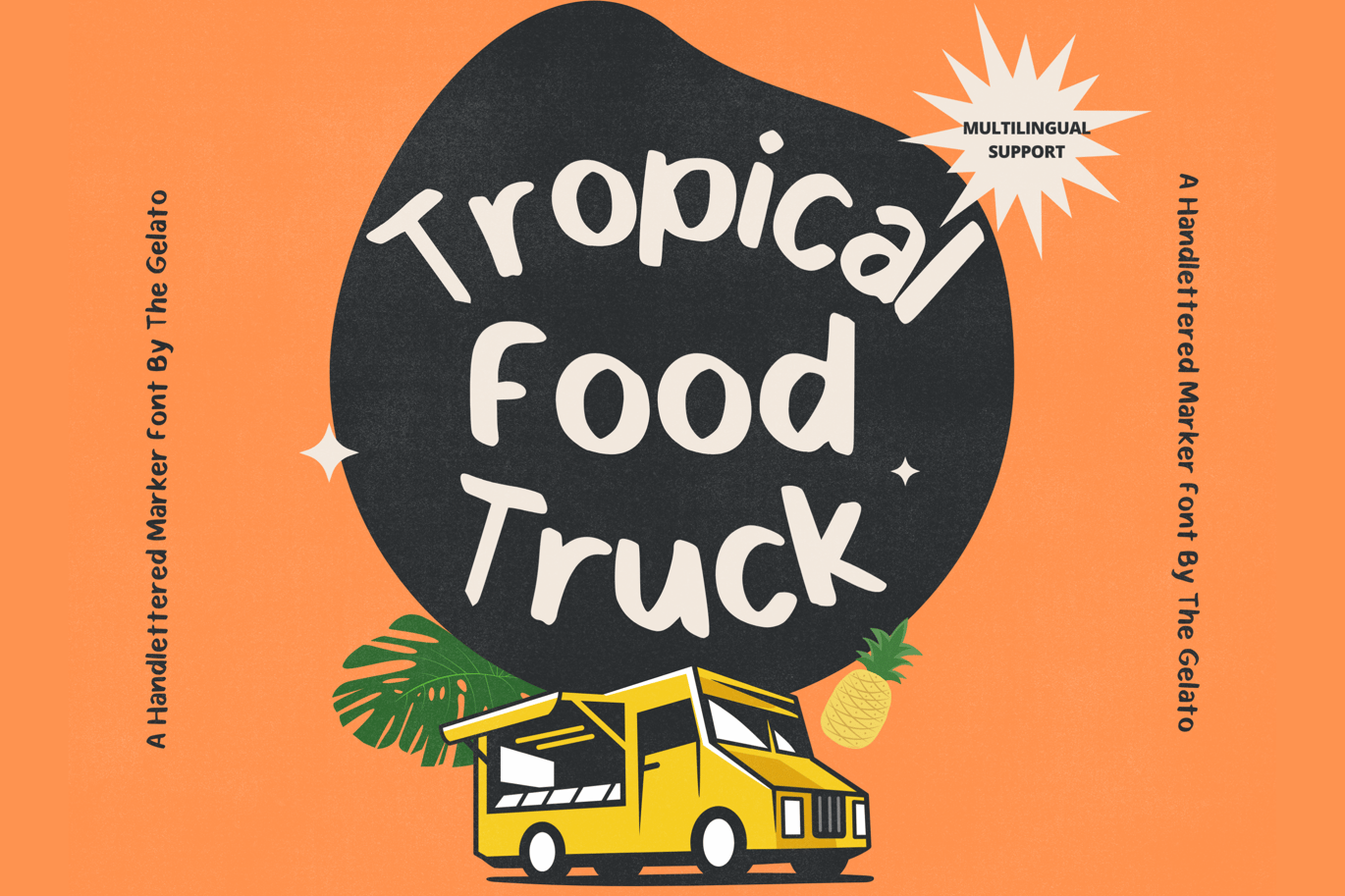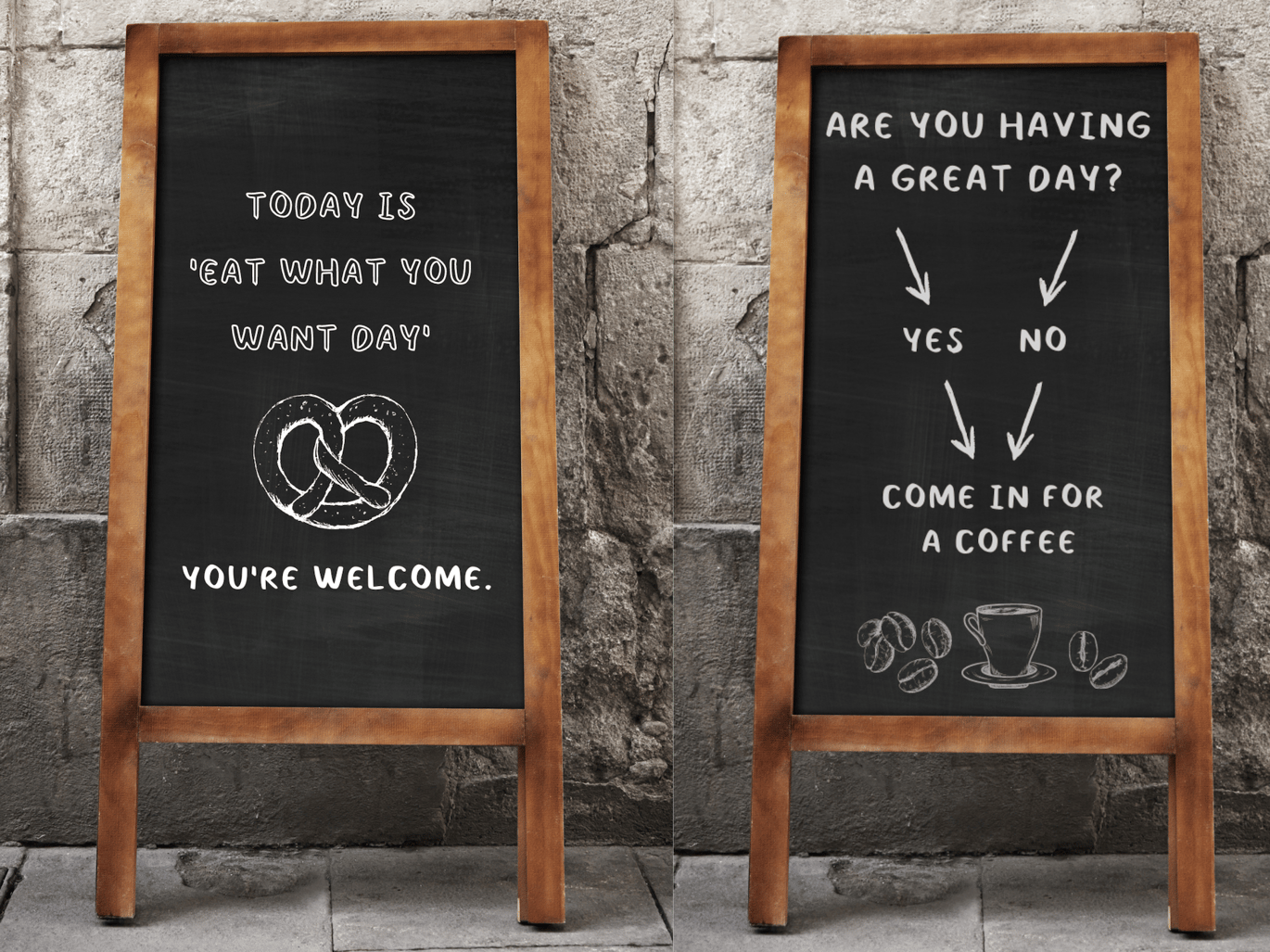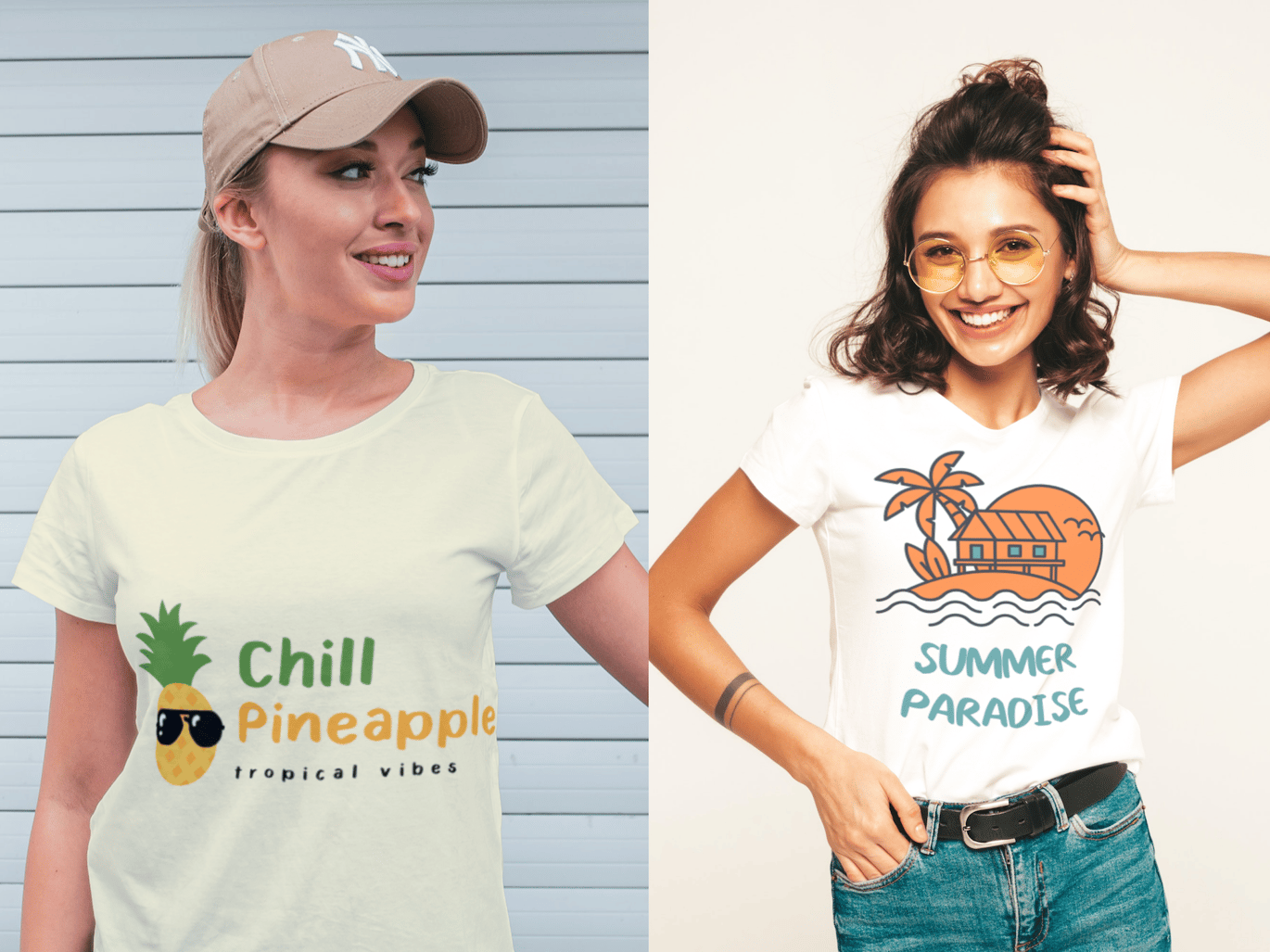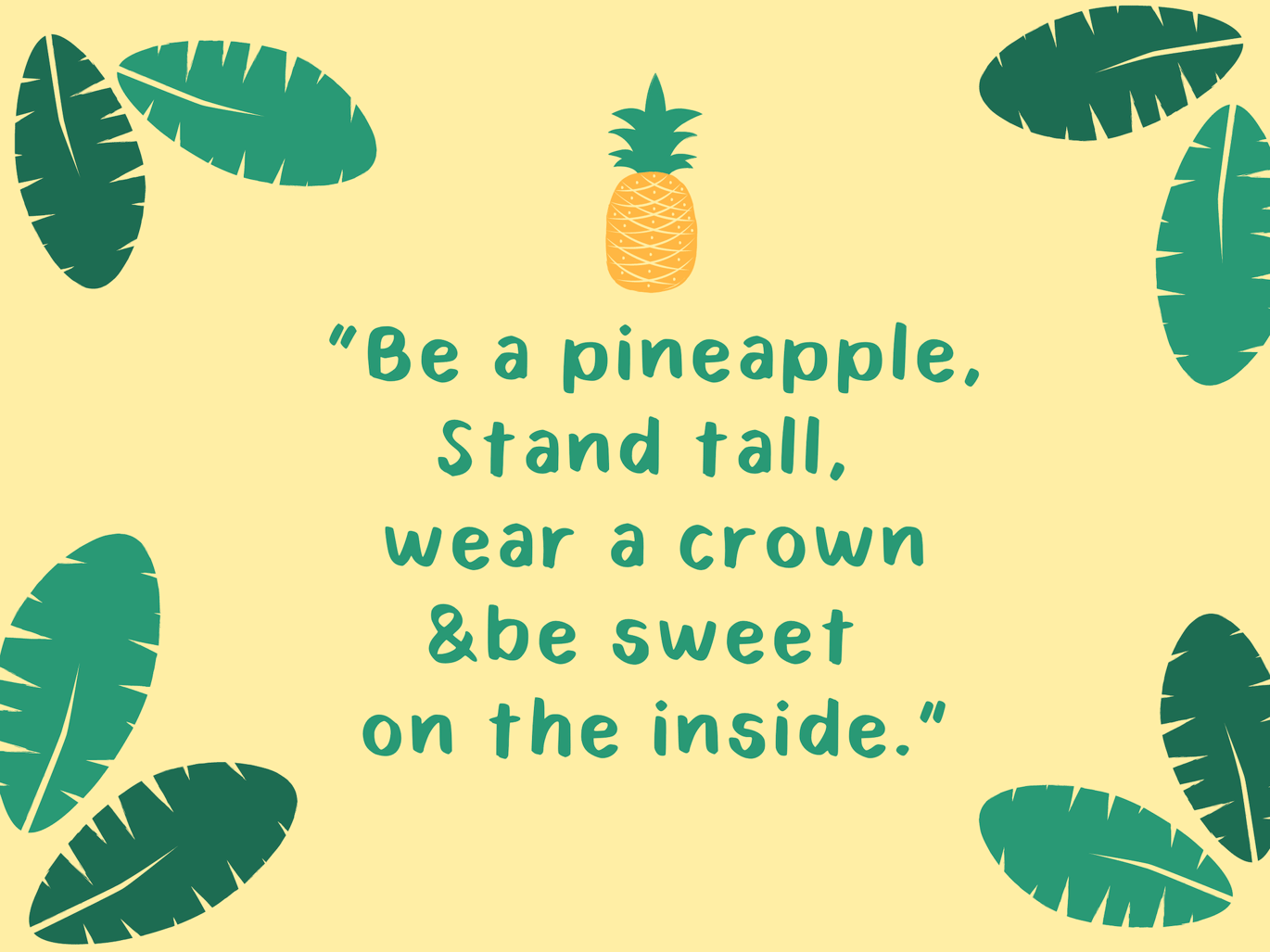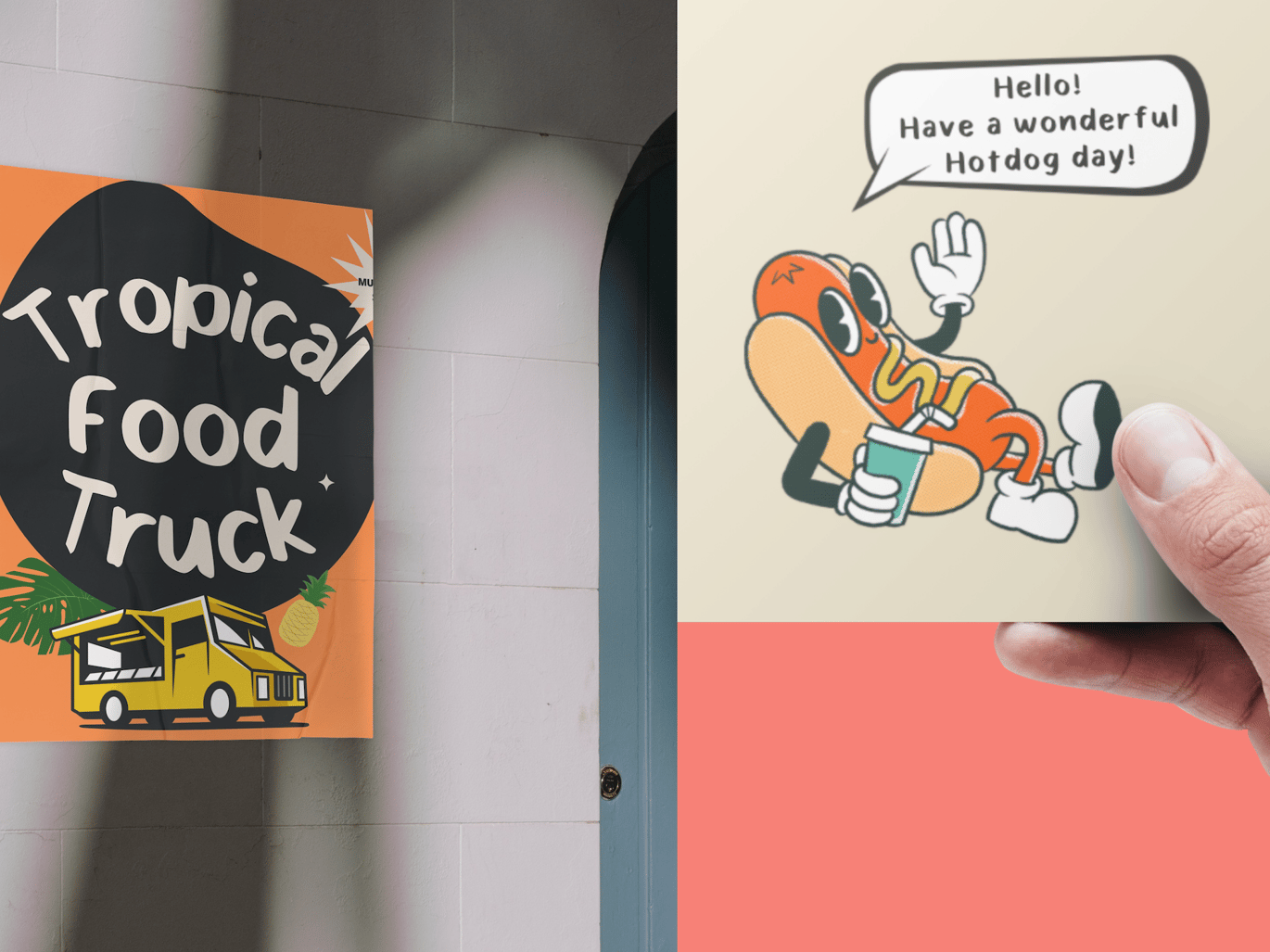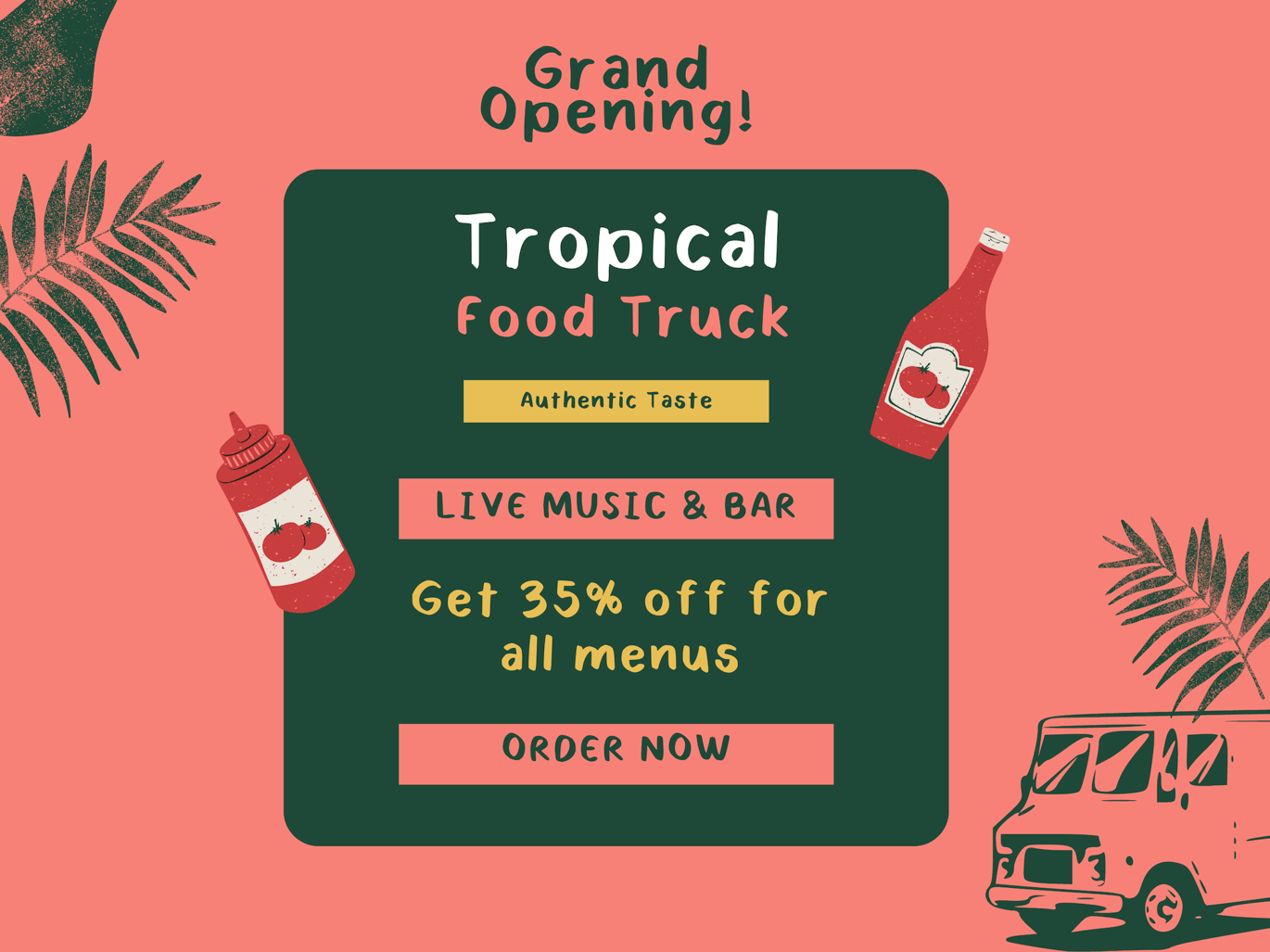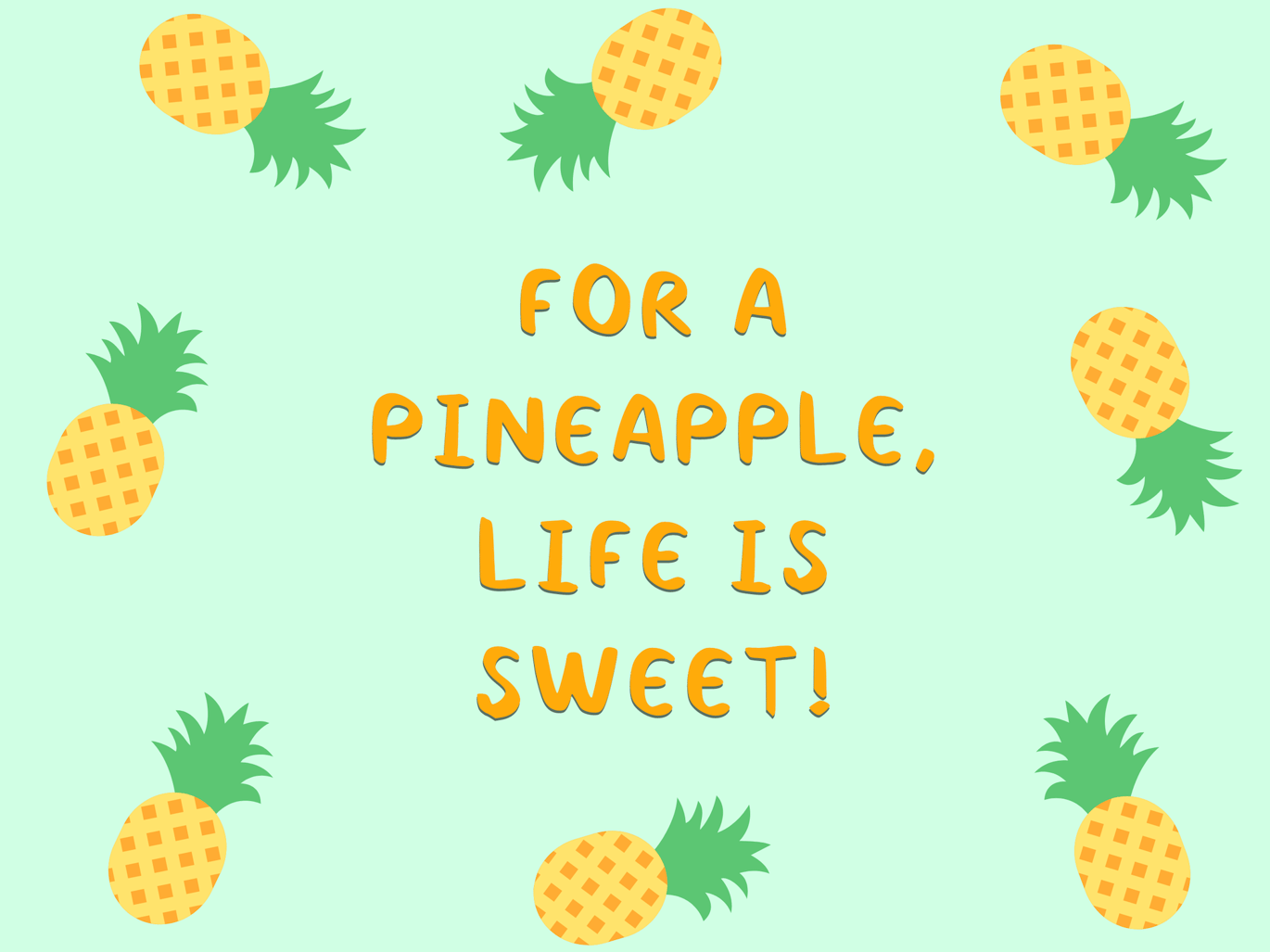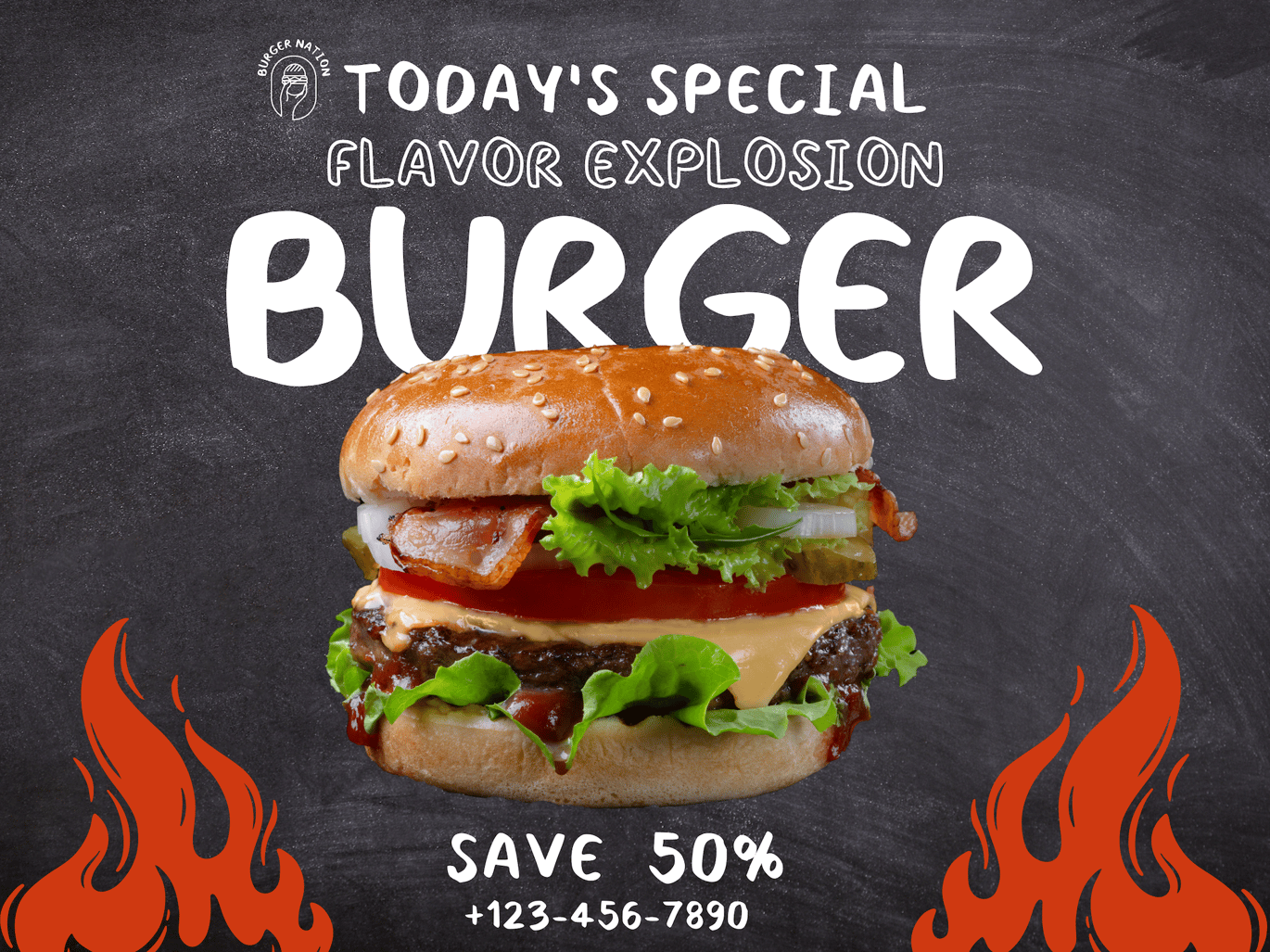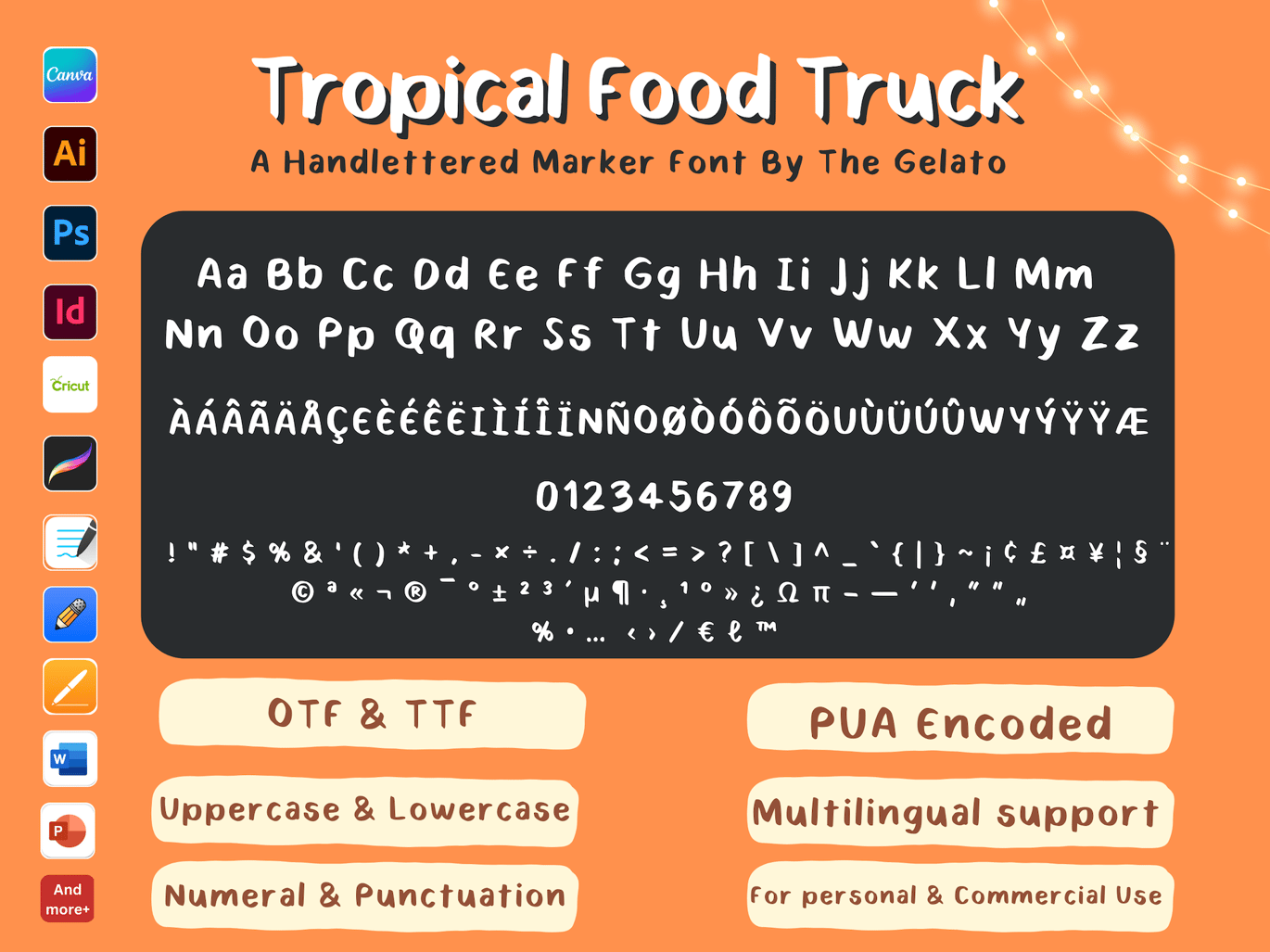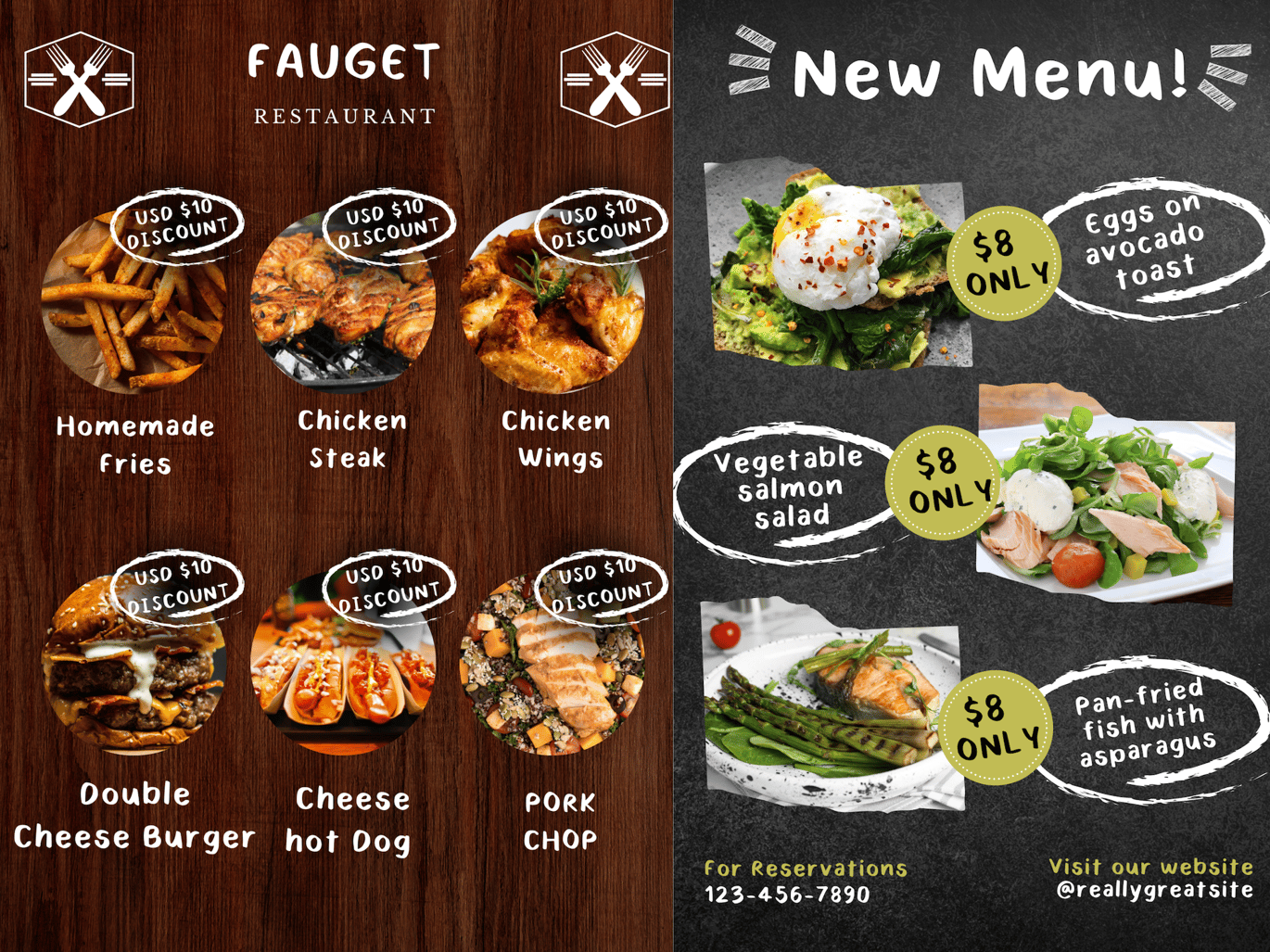
Tropical Food Truck Font
Tropical Food Truck is a handwritten marker font that can be used as a Marker Felt Font, Handwritten Chalk Font, Food Truck Sign Font, Business Sign Font, Handwritten Marker Font, Chalkboard Font for Restaurant Menu, Bakery Menu Font, Chalkboard Menu Font
Perfectly suitable for numerous use such as quotations, banners, logos, product packaging, titles, headers, menu lists and even for digital note-taking!